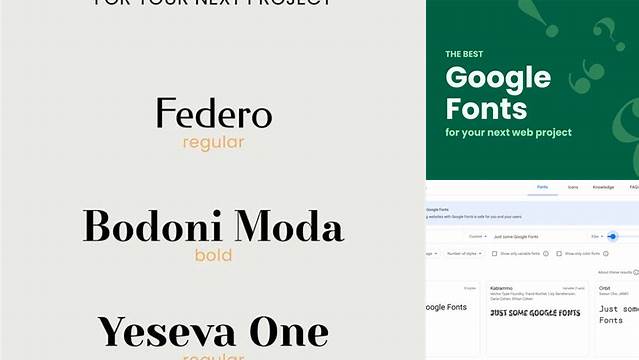
Top Free Google Fonts For Your Next Project
Choosing the right font can make or break your design, guys! Luckily, Google Fonts offers a treasure trove of amazing free fonts. Let’s dive into some of the best free font Google has to offer and how to use them effectively.
1. Best Google Fonts for Headings
When it comes to headings, you need fonts that grab attention and make a statement. The best Google Fonts for Headings are often bold and have a distinct character. Think about the overall tone and style you want to convey. Are you aiming for modern and sleek, or classic and elegant? This will guide your font selection. Using the best free font Google has for headings ensures that your content is not only readable but also visually appealing. Consider factors like the font’s weight, letter spacing, and overall visual impact. A strong heading font can significantly improve the user experience, making your website or design more engaging and professional. Experiment with different pairings of heading and body fonts to achieve the desired aesthetic. Always prioritize readability and clarity, even when choosing a decorative font for headings. Remember, the goal is to draw the reader in and encourage them to explore your content further. The best free font Google offers for headings often come in multiple weights, giving you flexibility in your design.
2. Best Google Fonts for Body Text
Body text needs to be highly readable and easy on the eyes. The best free font Google offers for body text are typically sans-serif or serif fonts with clean lines and good legibility. Think about how much text you have and the overall reading experience. A well-chosen body font can make a huge difference in how users interact with your content. Choosing the best Google Fonts for body text involves considering factors like font size, line height, and letter spacing. These elements contribute to readability and prevent eye strain. Using a font that is too decorative or has inconsistent letterforms can make reading a chore. The best free font Google has for body text often come in regular and italic styles, which are essential for creating emphasis and hierarchy within your content. Test your font choices on different screen sizes and devices to ensure they remain readable. Remember, the primary goal of body text is to convey information clearly and effectively. A good body font should fade into the background, allowing the content to shine.
3. Top Sans-Serif Google Fonts
Sans-serif fonts are known for their clean, modern look, making them a popular choice for websites and digital interfaces. The best free font Google offers in the sans-serif category are versatile and can be used for a variety of purposes. Think about the overall aesthetic you want to achieve. Sans-serif fonts can range from geometric and minimalist to humanist and friendly. Understanding these nuances can help you choose the best Google Fonts for your specific project. The best free font Google has in this category often include popular options like Roboto, Open Sans, and Lato. These fonts are highly legible and work well in both headings and body text. When selecting a sans-serif font, consider factors like the font's weight, width, and overall character. A well-chosen sans-serif font can enhance the readability and visual appeal of your design. Experiment with different sans-serif fonts to find the perfect match for your brand or project. Always test your font choices on different devices and screen sizes to ensure they maintain their clarity. Remember, the goal is to create a clean and modern look that is easy on the eyes.
4. Top Serif Google Fonts
Serif fonts have a classic, elegant feel, making them ideal for projects that require a touch of sophistication. The best free font Google offers in the serif category can add a sense of tradition and formality to your designs. Think about the overall tone you want to convey. Serif fonts are often used in books, magazines, and other print materials, but they can also work well on the web. Choosing the best Google Fonts for your project involves considering factors like the font's serifs, weight, and overall legibility. The best free font Google has in this category often include popular options like Merriweather, Playfair Display, and Lora. These fonts are highly versatile and can be used for headings, body text, and other design elements. When selecting a serif font, pay attention to the font's contrast and its ability to scale well on different screen sizes. A well-chosen serif font can enhance the readability and visual appeal of your content. Experiment with different serif fonts to find the perfect match for your brand or project. Remember, the goal is to create a classic and elegant look that is easy to read.
5. Best Google Fonts for Websites
Websites need fonts that are not only visually appealing but also load quickly and render well across different browsers and devices. The best free font Google offers for websites are optimized for online use, ensuring a smooth and seamless user experience. Think about the overall design and functionality of your website. The best Google Fonts for websites often include popular options like Roboto, Open Sans, and Lato, which are known for their readability and performance. The best free font Google has in this category also includes more unique options that can help your website stand out. When selecting a font for your website, consider factors like the font's weight, letter spacing, and overall legibility. It's also important to choose a font that is compatible with your website's design and branding. Experiment with different font pairings to find the perfect combination for your website. Always test your font choices on different browsers and devices to ensure they render correctly. Remember, the goal is to create a website that is both visually appealing and easy to use.
6. Best Google Fonts for Mobile
Mobile devices have smaller screens, so fonts need to be highly legible and easy to read on the go. The best free font Google offers for mobile are designed to be clear and readable even at small sizes. Think about the user experience on mobile devices. The best Google Fonts for mobile often include simple, clean fonts that don't clutter the screen. The best free font Google has in this category also includes fonts that are optimized for touch screens, ensuring users can easily tap and interact with your content. When selecting a font for mobile, consider factors like the font's weight, letter spacing, and overall legibility. It's also important to choose a font that is compatible with your mobile website or app's design. Experiment with different font sizes and weights to find the perfect balance for mobile readability. Always test your font choices on different mobile devices to ensure they render correctly. Remember, the goal is to create a mobile experience that is both visually appealing and easy to use.
7. Best Google Fonts for Print
Print materials require fonts that are crisp and clear, even at high resolutions. The best free font Google offers for print are designed to look great on paper, ensuring your printed materials are professional and readable. Think about the type of print project you're working on. The best Google Fonts for print often include serif fonts, which are known for their classic and elegant look. The best free font Google has in this category also includes sans-serif fonts that can work well for print, especially for shorter blocks of text. When selecting a font for print, consider factors like the font's weight, letter spacing, and overall legibility. It's also important to choose a font that is compatible with your printing process and paper type. Experiment with different font sizes and weights to find the perfect balance for print readability. Always test your font choices by printing a sample page to ensure they look as expected. Remember, the goal is to create printed materials that are both visually appealing and easy to read.
8. Best Google Fonts for Logos
A logo font needs to be unique, memorable, and representative of your brand. The best free font Google offers for logos can help you create a strong and distinctive visual identity. Think about your brand's personality and values. The best Google Fonts for logos often include bold and impactful fonts that can stand out and make a statement. The best free font Google has in this category also includes more subtle and elegant fonts that can work well for sophisticated brands. When selecting a font for your logo, consider factors like the font's shape, weight, and overall character. It's also important to choose a font that is legible and scalable, so it looks good at different sizes. Experiment with different fonts and font pairings to find the perfect match for your logo. Always test your logo font in different contexts to ensure it remains effective. Remember, the goal is to create a logo that is both visually appealing and representative of your brand.
9. Best Google Fonts for Resumes
A resume font needs to be professional, clean, and easy to read. The best free font Google offers for resumes can help you make a great first impression on potential employers. Think about the overall tone and style of your resume. The best Google Fonts for resumes often include simple and elegant fonts that convey professionalism. The best free font Google has in this category also includes fonts that are optimized for readability, ensuring your resume is easy to scan and understand. When selecting a font for your resume, consider factors like the font's weight, letter spacing, and overall legibility. It's also important to choose a font that is compatible with your resume template and formatting. Experiment with different font sizes and weights to find the perfect balance for resume readability. Always proofread your resume carefully to ensure it is free of errors. Remember, the goal is to create a resume that is both visually appealing and easy to read, highlighting your skills and experience effectively.
30. Future Trends in Google Fonts
The world of typography is constantly evolving, and Google Fonts is likely to continue to adapt to meet the needs of designers and users. The best free font Google offers today may be different from what's available in the future. Think about the potential future trends in Google Fonts and typography. The best Google Fonts are likely to incorporate new technologies and design styles. The best free font Google may see advancements in variable fonts, color fonts, and accessibility features. When considering future trends, think about how these changes will impact your design workflow and font choices. Experiment with new font technologies and techniques to stay ahead of the curve. Always prioritize readability and user experience when selecting fonts. Remember, the goal is to use the best tools and resources available to create visually appealing and effective designs, and staying informed about future trends is essential.